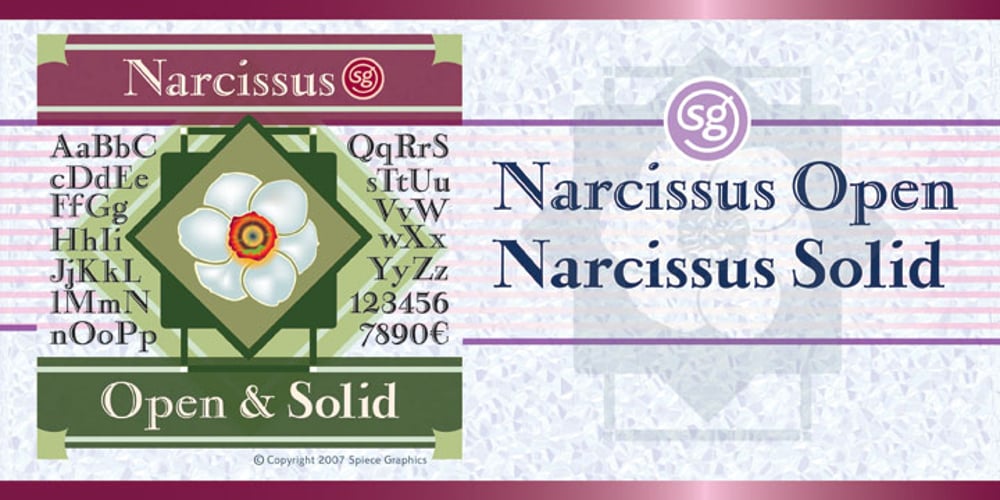
Narcissus SG
Narcissus SG font
Narcissus SG Font Family was designed by Pierre Simon Fournier, Jim Spiece, Walter Tiemann and published by Spiece Graphics. Narcissus SG contains 2 styles and family package options. Narcissus Open is a heavy typeface designed by Walter Tiemann in 1921 for the Klingspor Foundry in Germany. It is a shaded wide roman using a very modest amount of white highlighting. Serifs are extremely delicate, almost ornamental. This elegant old typeface gives a feeling of importance and authority and is highly effective when used in large display sizes. Narcissus Solid lacks all highlighting and becomes more useful in smaller sizes. Narcissus Open and Solid are also available in the OpenType Std format. Some new characters have been added to this OpenType version. Advanced features currently work in Adobe Creative Suite InDesign, Creative Suite Illustrator, and Quark XPress 7. Check for OpenType advanced feature support in other applications as it gradually becomes available with upgrades.